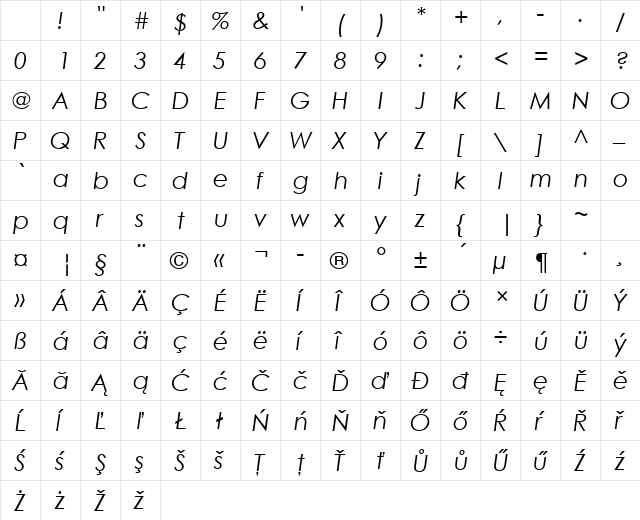
Century Gothic CE takes a clean, functional approach - its unadorned letterforms prioritise legibility and work reliably across screen and print environments. The slanted form adds forward momentum and visual energy.
Font Pairing: Works well alongside a characterful serif or display font that can carry the expressive load while Century Gothic CE handles the functional copy.
Pro Tip: Use Century Gothic CE for UI labels, navigation, and short-form body copy where clean legibility is the priority.